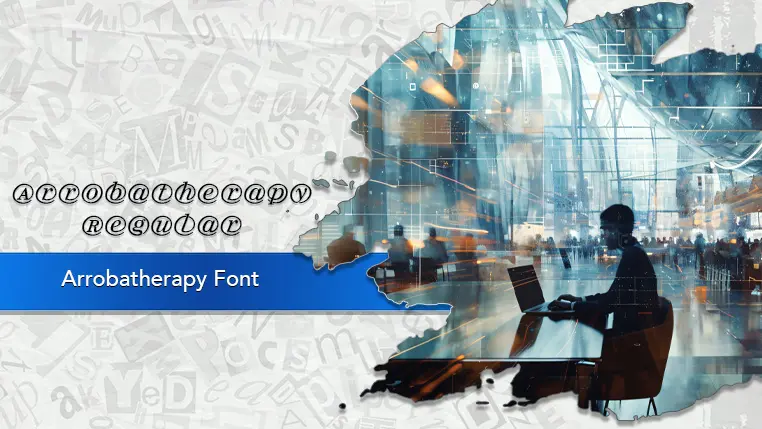
The Arrobatherapy font family may be ideal for you if you enjoy working on an artistic design project. The lively, expressive look of this typeface, which was created by Harold's Fonts, makes it ideal for Excellent for logos and branding for tech companies, software products, web services, or anything related to the internet and digital communication, due to the prominent "@" symbol. Use it for branding, websites, or promotional materials for design studios, marketing agencies, or artistic ventures that want to showcase creativity and a unique identity. Ideal for making headlines, article titles, posters, and banners pop. Its distinctive characters will draw immediate attention. and other light-hearted visual projects.
Regular are the one primary font styles of the Arrobatherapy font family. You may build dynamic, visually appealing text layouts with the distinct flair that each style offers. With crisp, readable lines and a relaxed tone.